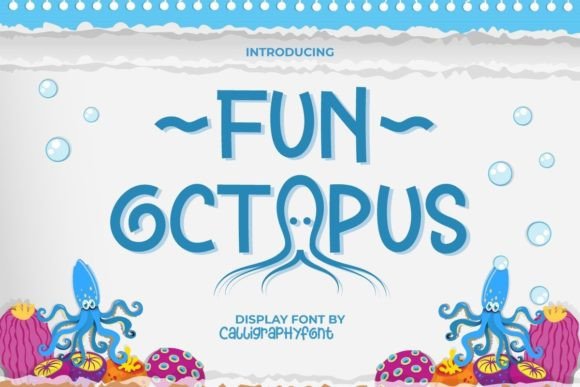
Embark on an undersea adventure with Fun Octopus Font! This delightful display font is brimming with character, inspired by the playful charm of an adorable octopus. Let your imagination dive into a world of creativity with Fun Octopus, the perfect choice for adding a touch of whimsy to your projects.
Picture this: a seafood restaurant menu that comes alive with the vibrant energy of the Fun Octopus Font. Each dish transforms into a culinary masterpiece, inviting diners to embark on a gastronomic voyage. Birthday invitations burst with joy, adorned with playful octopus illustrations that capture the essence of childhood wonder.
Fun Octopus Font adds a splash of exuberance to comics, bringing characters to life with its expressive strokes. Greeting cards adorned with this font become heartfelt expressions of affection, carrying messages of love and cheer. Labels designed with Fun Octopus Font add a touch of whimsy to any product, making them stand out on shelves and calling out to customers.
And oh, the pirate's crafts! Fun Octopus Font breathes life into imaginative creations, making them pop with vibrant energy. Whether it's a treasure map leading to hidden riches or a pirate ship sailing through stormy seas, this font sets the stage for epic adventures.
For children's activities and school projects, Fun Octopus Font is the ultimate companion. Its cheerful touch transforms ordinary assignments into delightful experiences. From colorful posters to creative worksheets, this font sparks curiosity and fuels imagination, making learning a joyful journey.
Fun Octopus Font is PUA encoded, ensuring effortless access to all of its captivating glyphs and swashes. Unleash your creativity and let the font's playful spirit guide you to new heights of design brilliance!